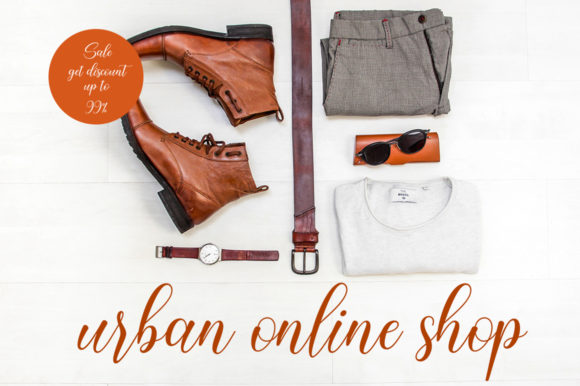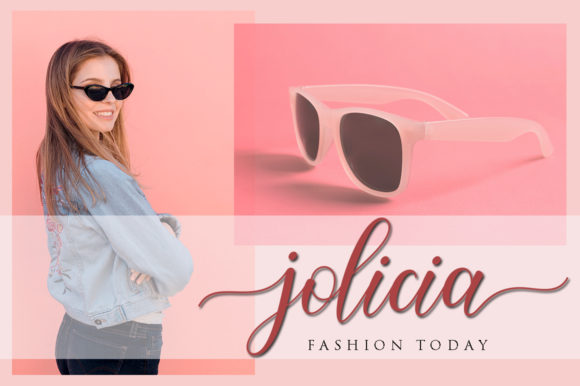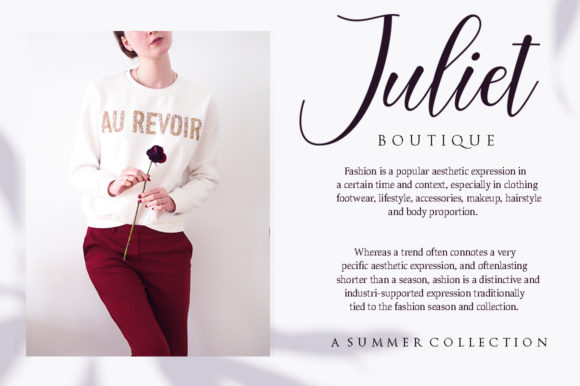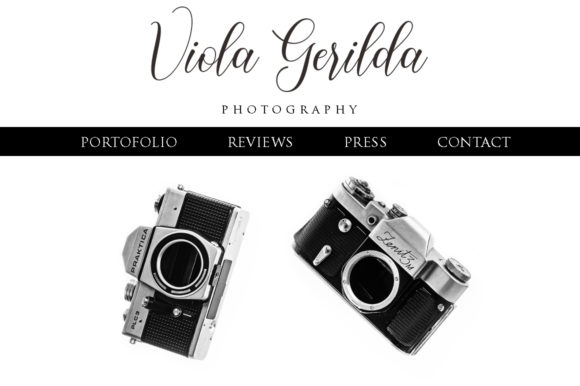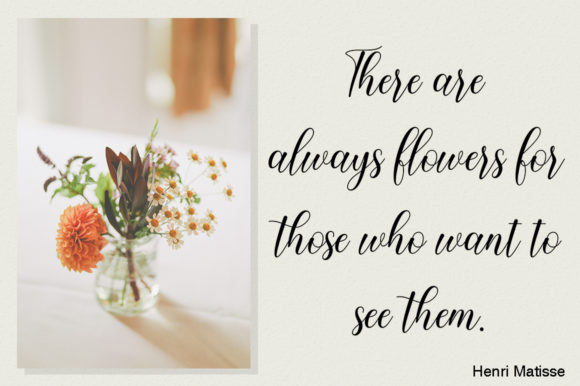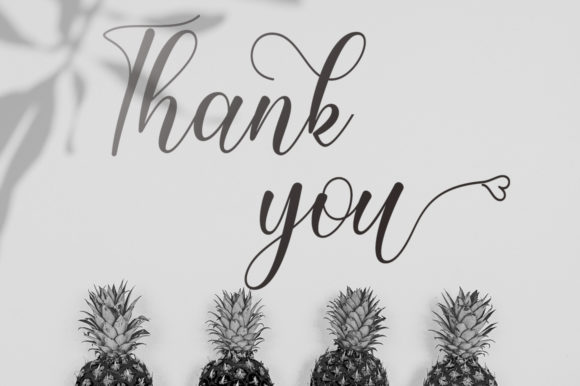
The Quest for the Perfect Font: Discovering Audryna
I still remember the countless hours I spent searching for the ideal font for a wedding invitation project. My client wanted something modern, yet elegant; trendy, yet timeless. I scrolled through font after font, but nothing seemed quite right. That was until I stumbled upon Audryna, a modern script font that has since become a staple in my design toolkit.
Audryna: A Modern Script Font with a Twist
Audryna is a modern script font designed with an irregular baseline, giving it a unique and trendy style. Its versatility makes it perfect for a wide range of creative projects, including wedding invitations, thank you cards, quotes, greeting cards, logos, business cards, and more. This font features initial and terminal letters, alternates, ligatures, and multiple language support, making it a powerful tool for designers, crafters, and creative hobbyists.
An Honest Review of Audryna
What I Love About Audryna
- ✨ Unique and trendy style with an irregular baseline
- ✅ Highly versatile and suitable for various design projects
- 💬 Includes initial and terminal letters, alternates, ligatures, and multiple language support
- 👍 Excellent for creating eye-catching titles, headings, and quotes
While Audryna is an excellent font, there are a few minor quirks to be aware of:
- ⚠️ Some users may find the irregular baseline challenging to work with, especially for body text
- 🤔 Limited suitability for very small font sizes or detailed designs
The Story Behind Audryna
Audryna was designed with the intention of creating a modern script font that would stand out from the crowd. Inspired by the imperfections and uniqueness of handwritten text, Audryna’s creator aimed to craft a font that would add a touch of personality to any design project. The result is a font that is both trendy and timeless, versatile and elegant.
Q: What type of projects is Audryna best suited for?
A: Audryna is perfect for wedding invitations, thank you cards, quotes, greeting cards, logos, business cards, and more.
Q: Does Audryna include multiple language support?
A: Yes, Audryna includes multiple language support, making it a great choice for designers working on international projects.